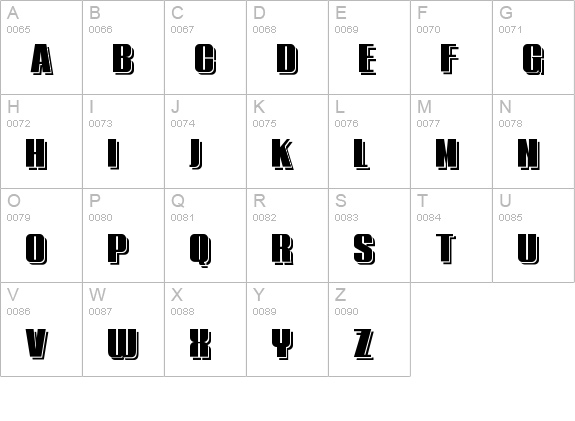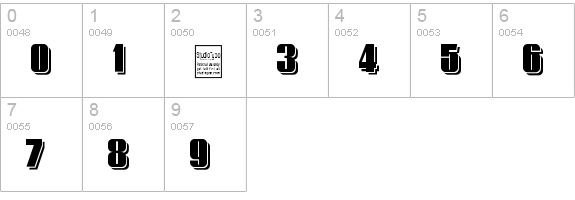
Typoline Demi Shadow Font Details
Typoline Demi Shadow is a sub-bold, structured variant in the Typoline typeface family \xE2\x80\x94 well suited to sub-headlines and emphasised passages.
Typoline Demi Shadow is a captivating and versatile font that adds a touch of elegance and whimsy to any design project. Its unique combination of boldness and subtlety creates a visually stunning effect that is sure to catch the eye. This font features a distinctive shadow effect that adds depth and dimension, giving your text a three-dimensional appearance. The demi weight adds a touch of sophistication, making it perfect for a wide range of applications, from logos and branding to headlines and invitations. With its clean and crisp lines, Typoline Demi Shadow exudes professionalism and refinement. Its timeless design makes it suitable for both contemporary and classic designs, ensuring its versatility and longevity. Whether you're designing a modern website or creating a vintage-inspired poster, this font is sure to make a statement. One of the best things about Typoline Demi Shadow is that it is freely available to download at FontsMarket.com. This means that you can easily access and use this stunning font in your projects without any restrictions. Whether you're a professional designer or a hobbyist, having this font at your disposal can add a touch of magic to your creations. So why wait? Download Typoline Demi Shadow now and unleash your creativity. With its beautiful shadow effect and timeless design, this font is sure to elevate your designs to new heights. Don't miss out on the opportunity to add this stunning font to your collection. Head over to FontsMarket.com and get your hands on Typoline Demi Shadow today.